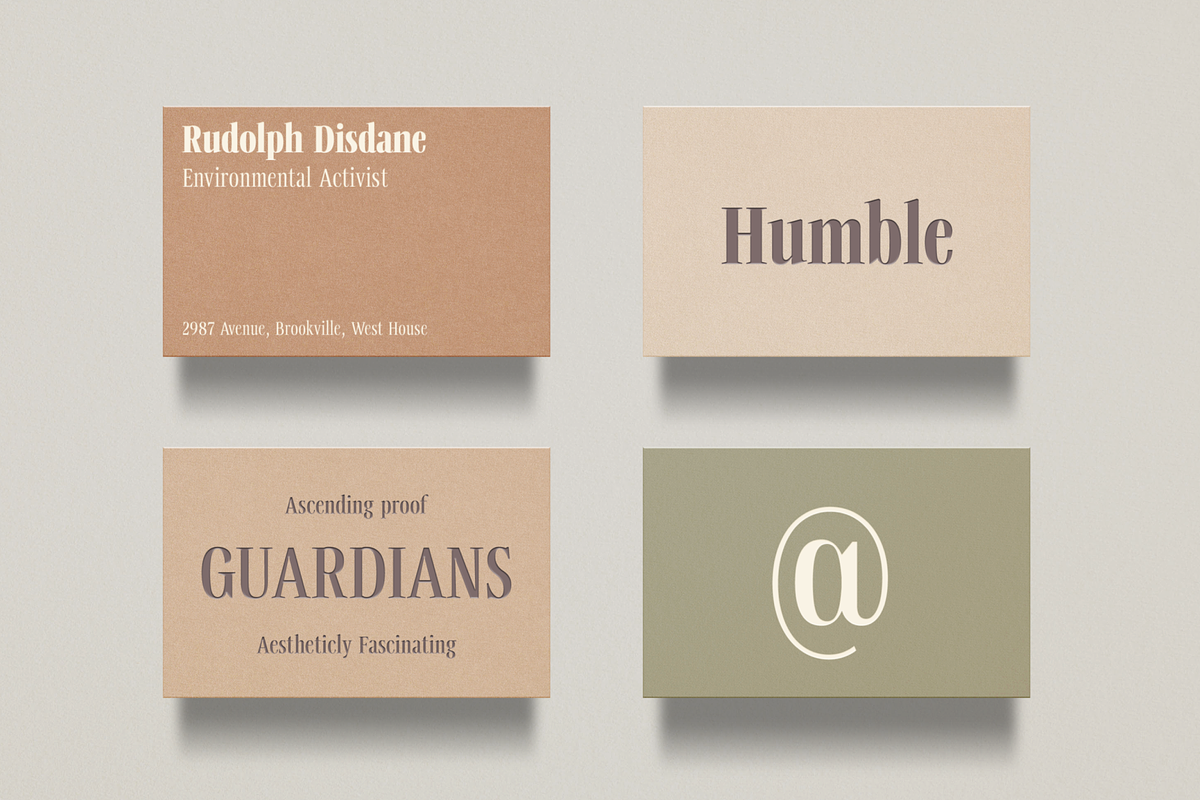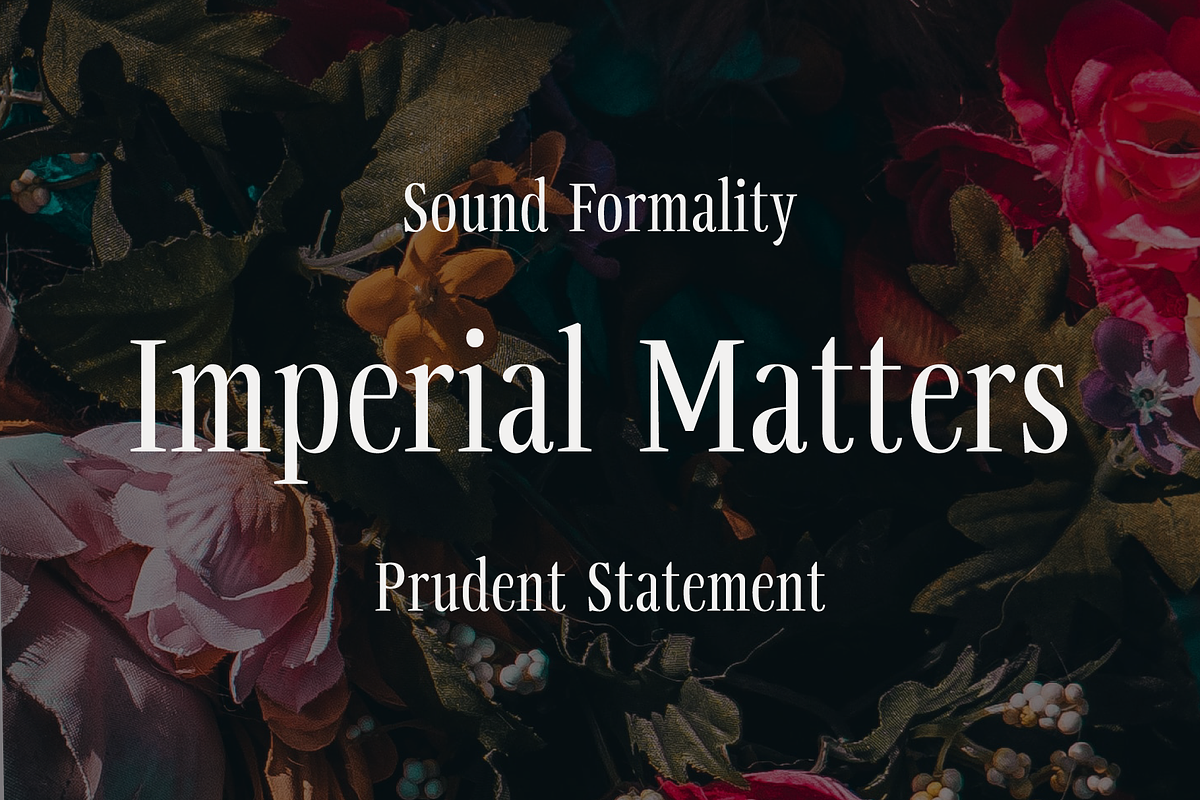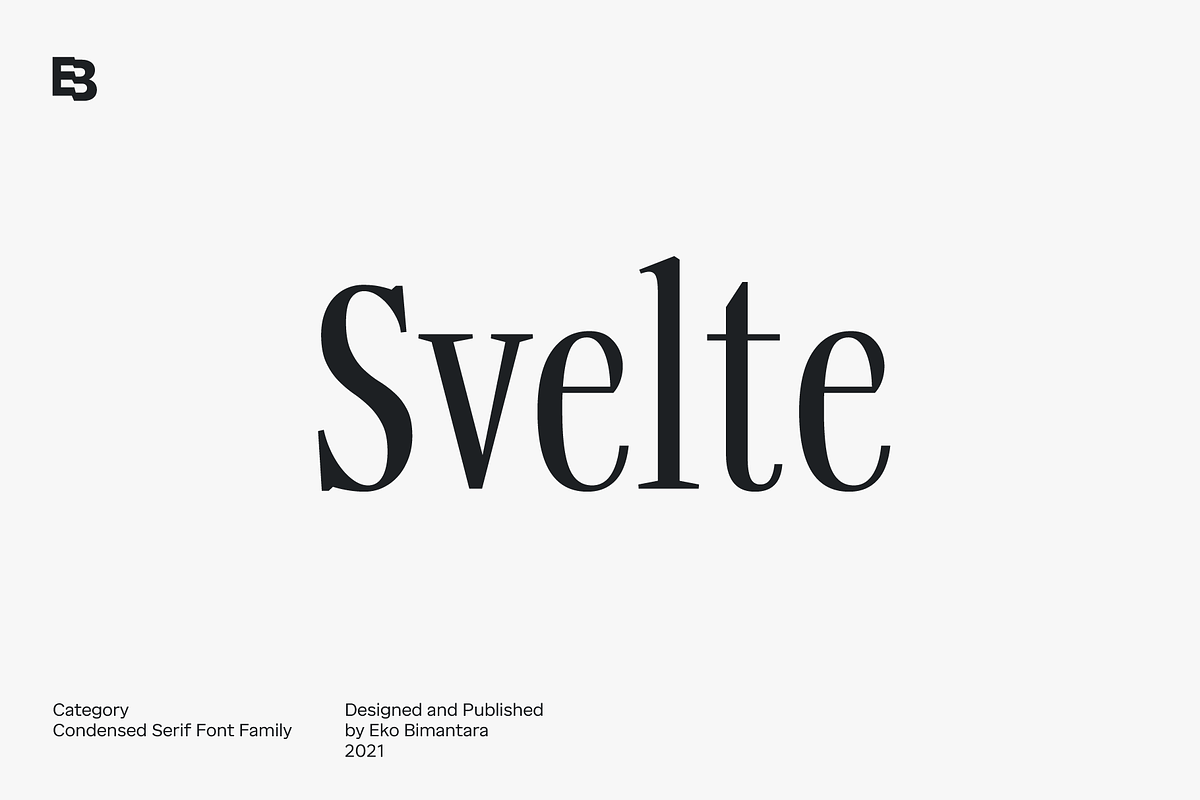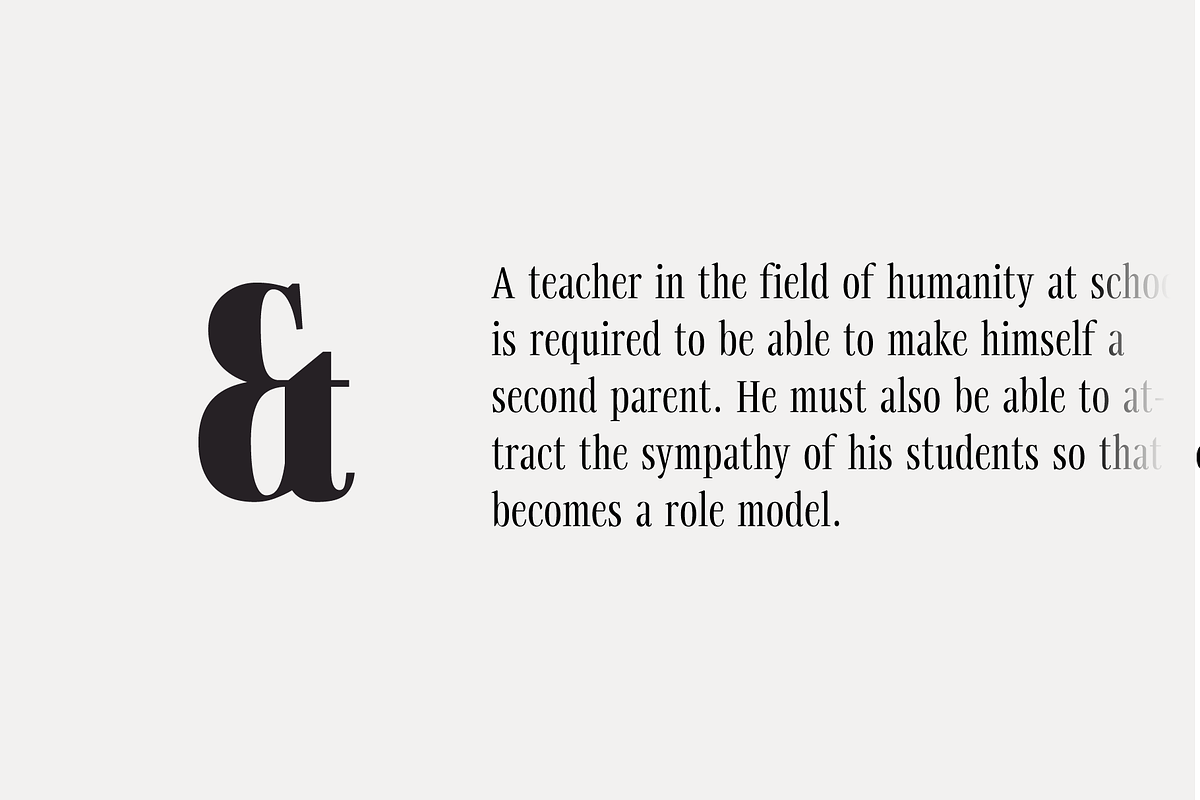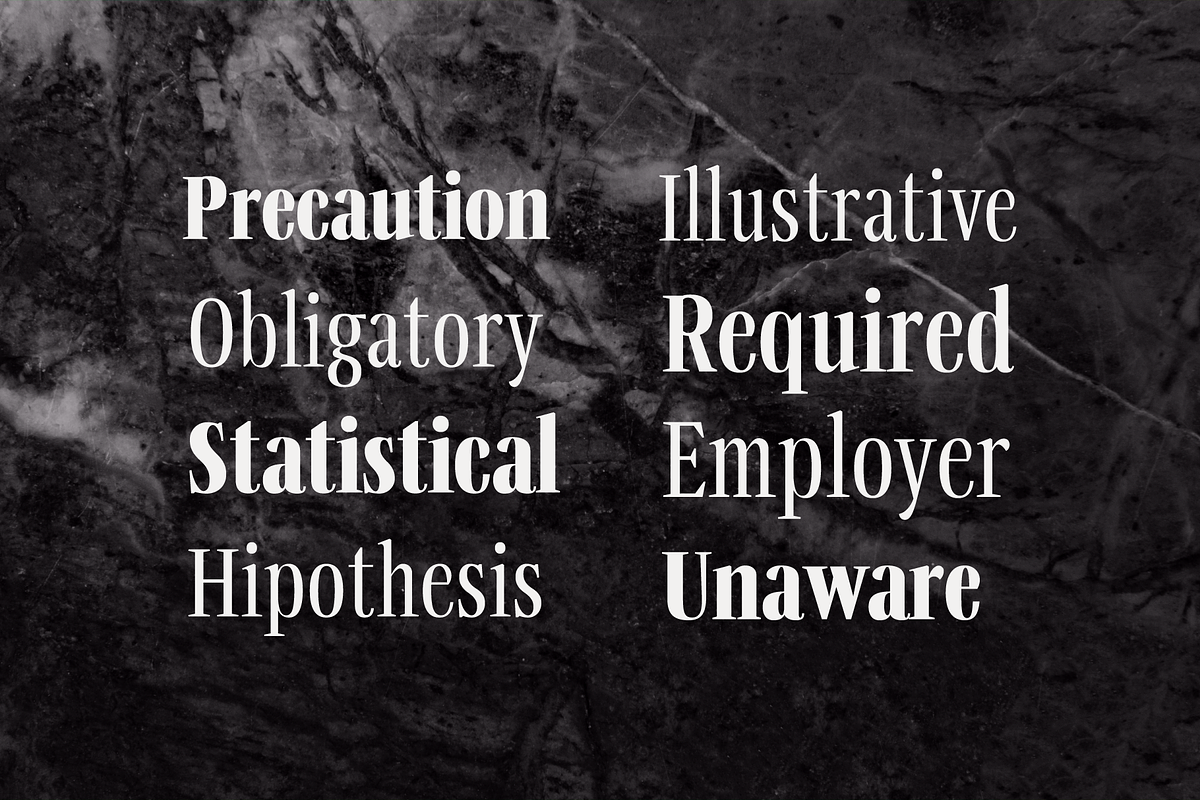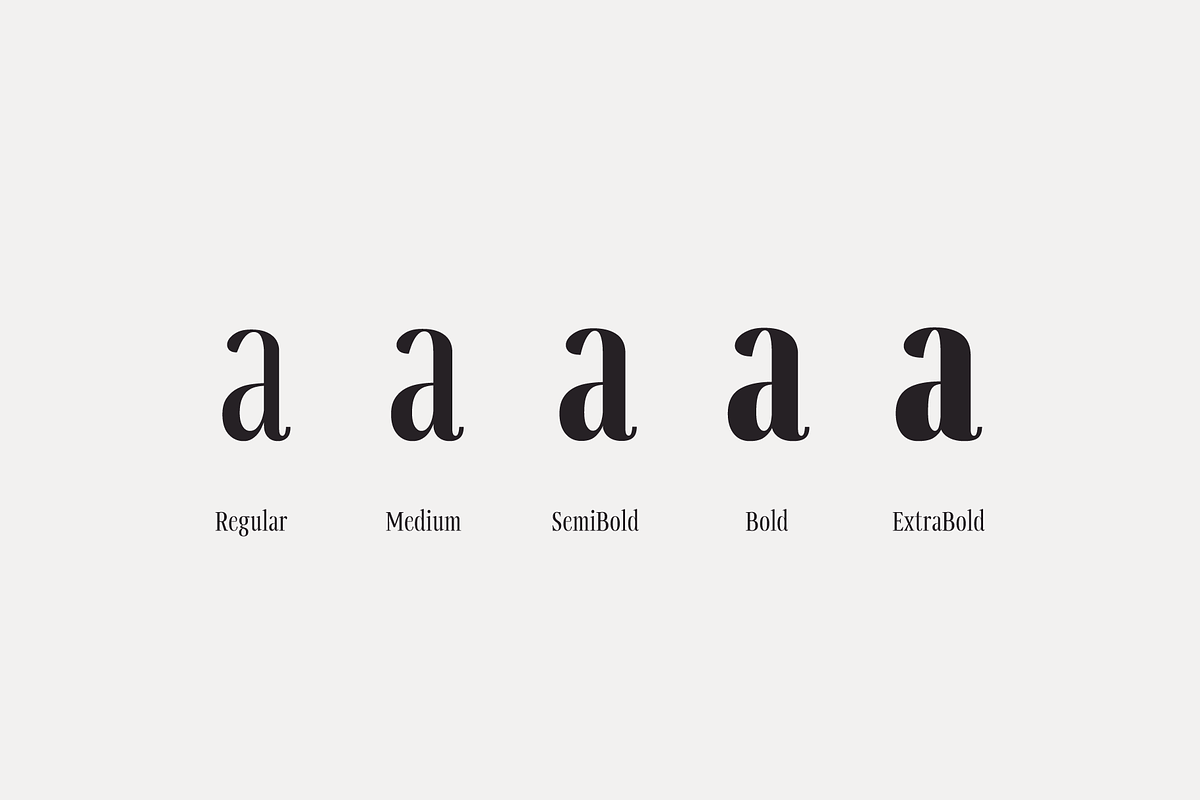
Svelte; Condensed Serif Family
Svelte is condensed serif family. Its consist of upright styles from Regular to ExtraBold. Fit for display, short text, and stacked typesetting. Its contain 394 glyphs with broad latin language coverage.